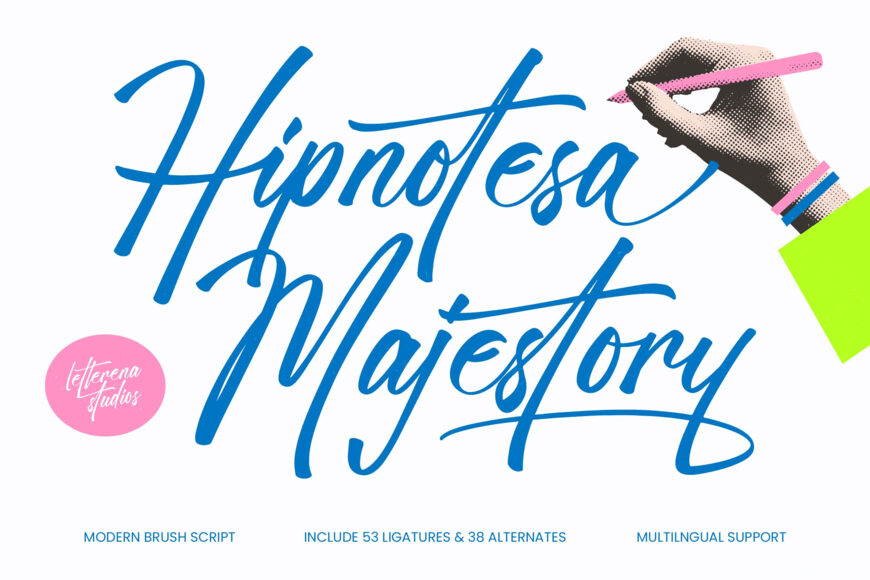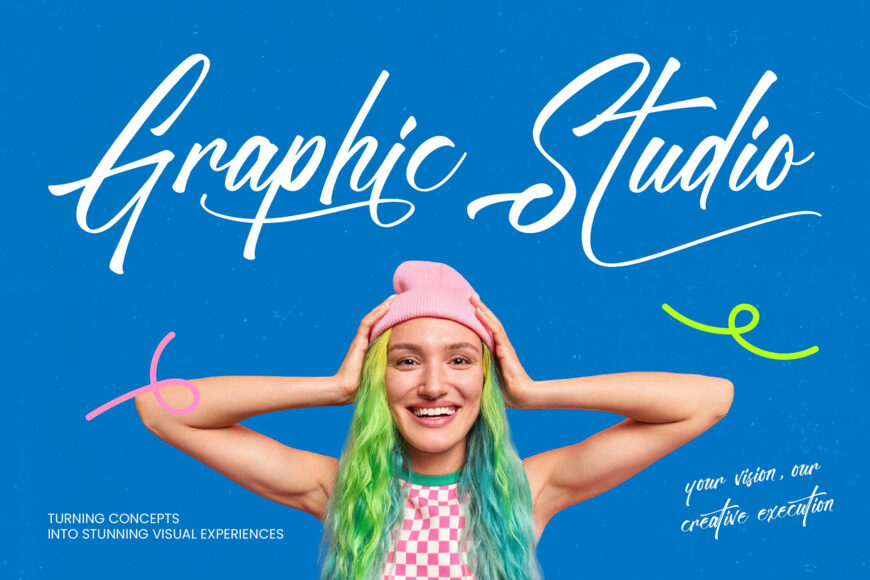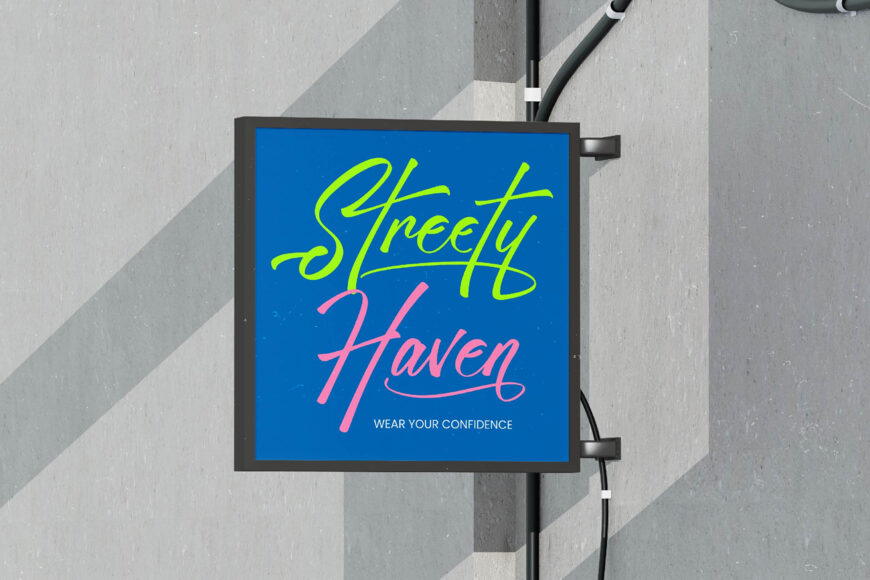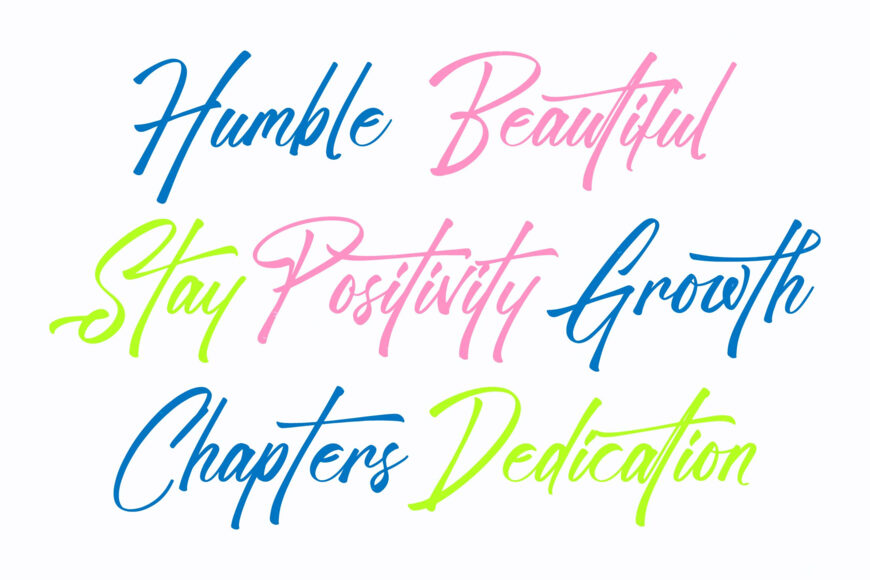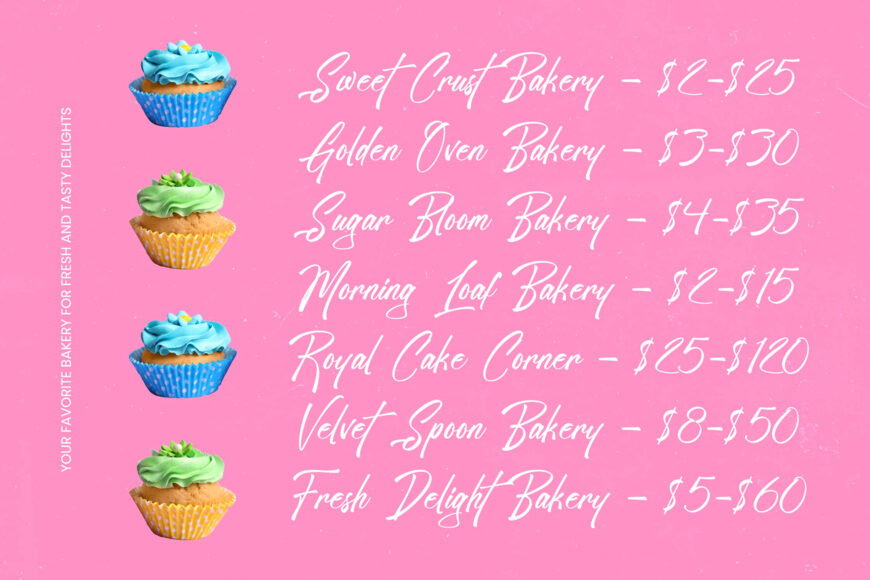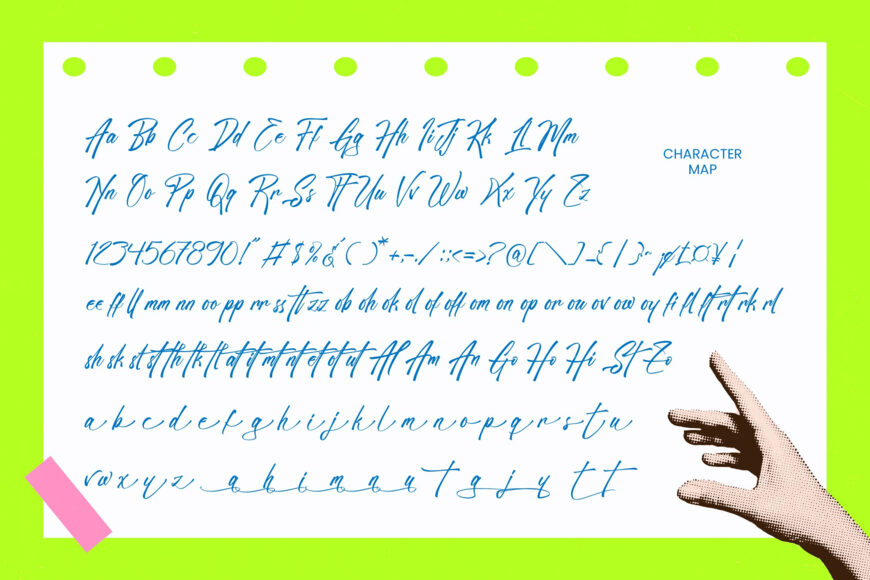
Hipnotesa Majestory Font
Bring your creative vision to life with Hipnotesa Majestory, a modern brush script combining raw energy with refined style. Its fluid, hand-drawn strokes and organic textures create an authentic artistic feel across print and digital projects, while its contemporary structure delivers striking rhythm and personality.
Featuring 53 ligatures and 38 stylistic alternates, it offers flexible tools for distinctive lettering—from bold headlines to delicate signatures.